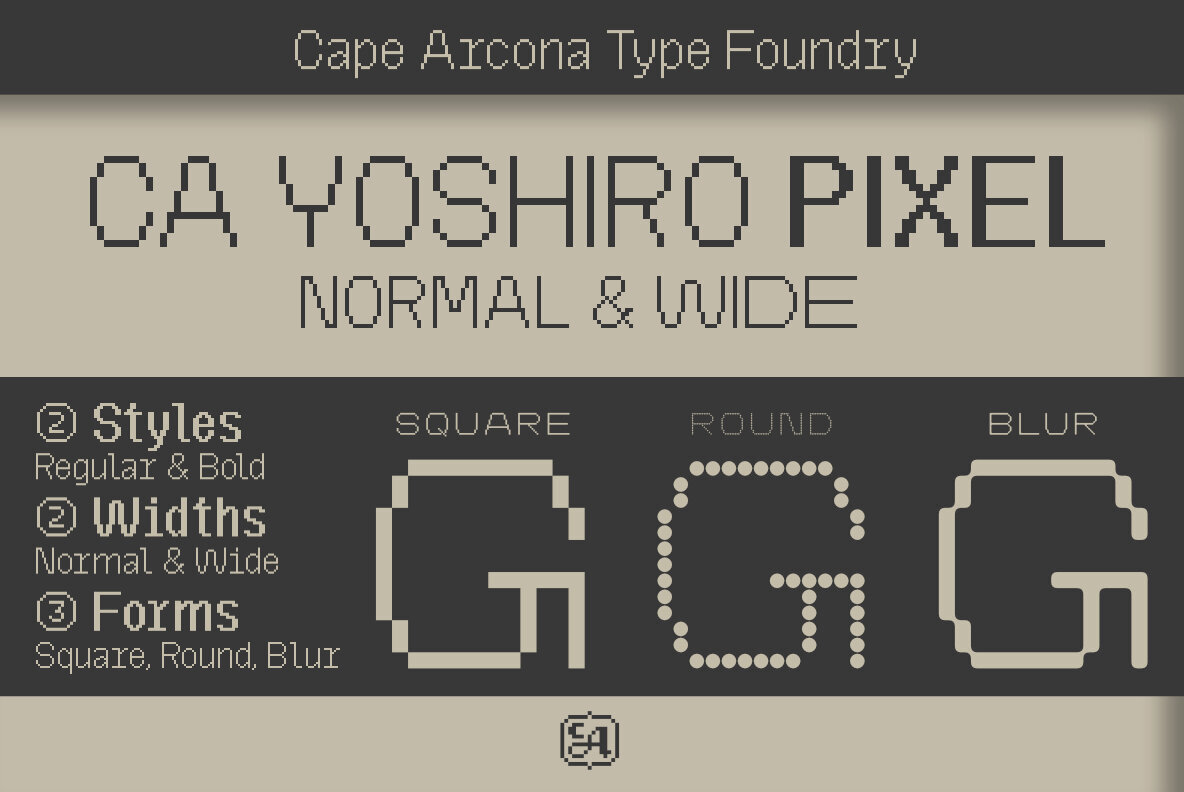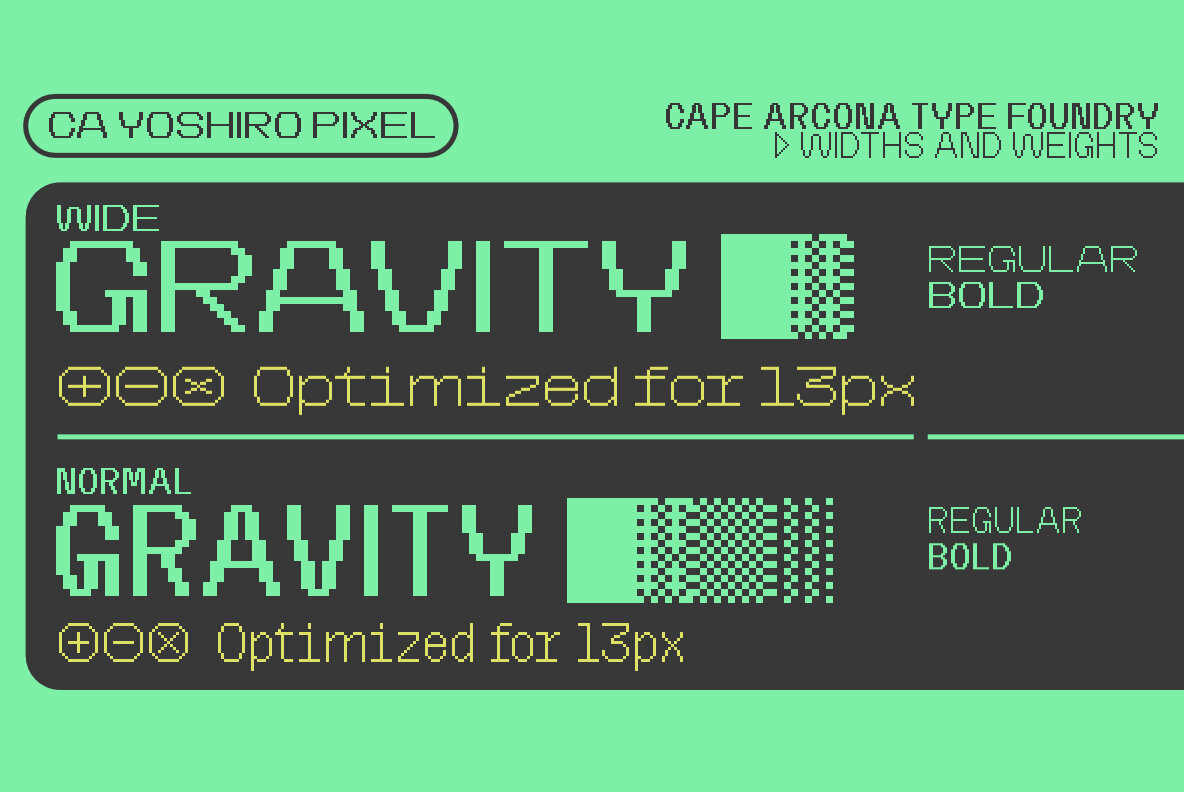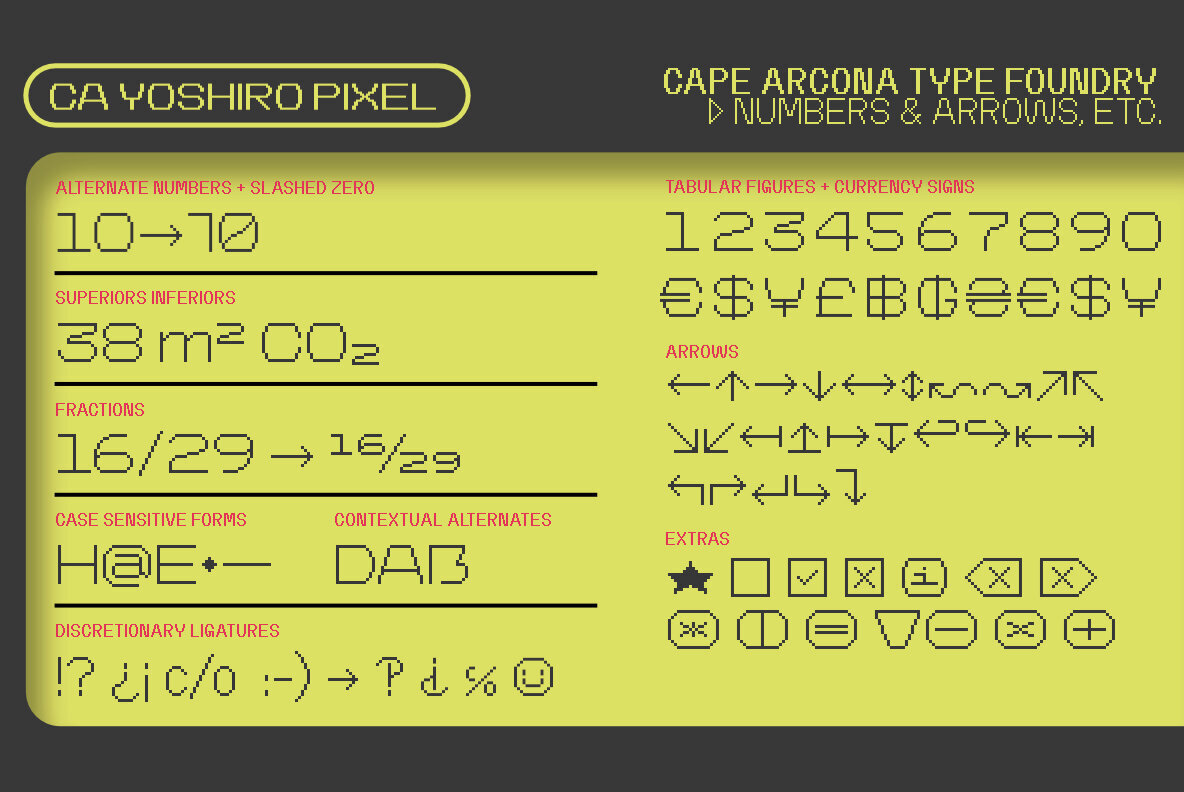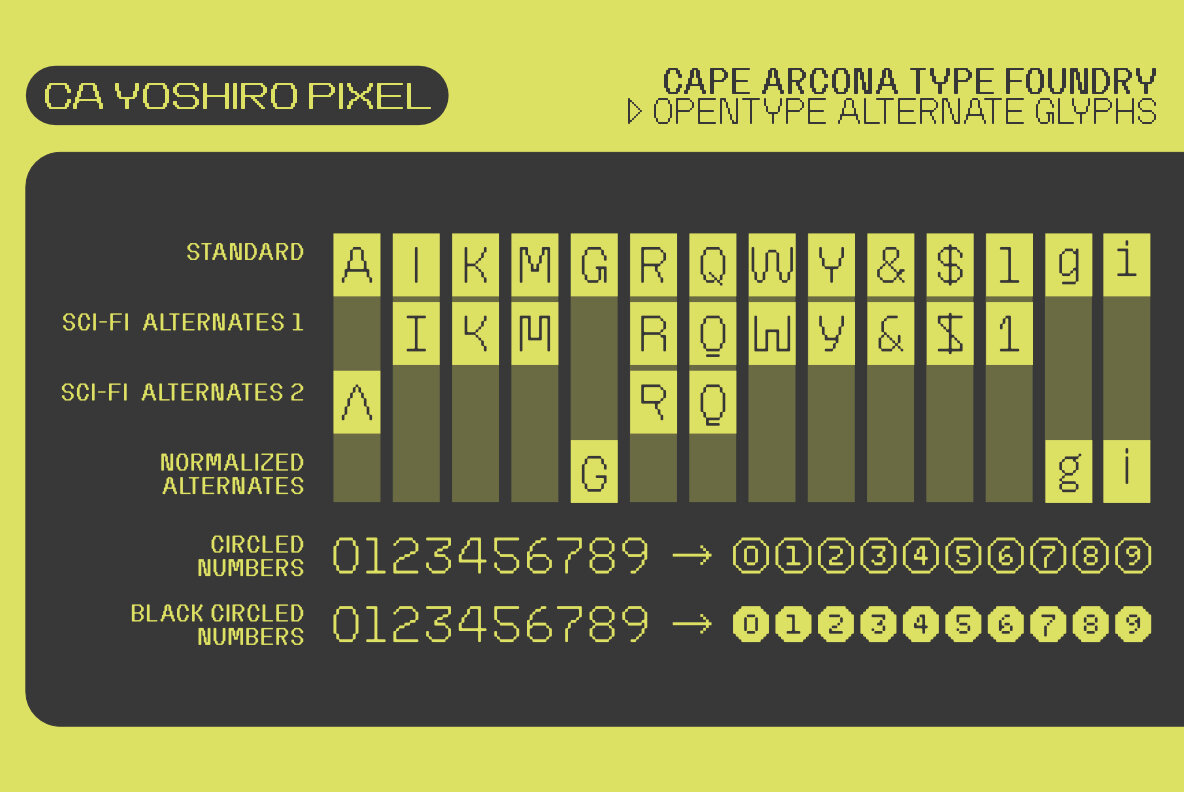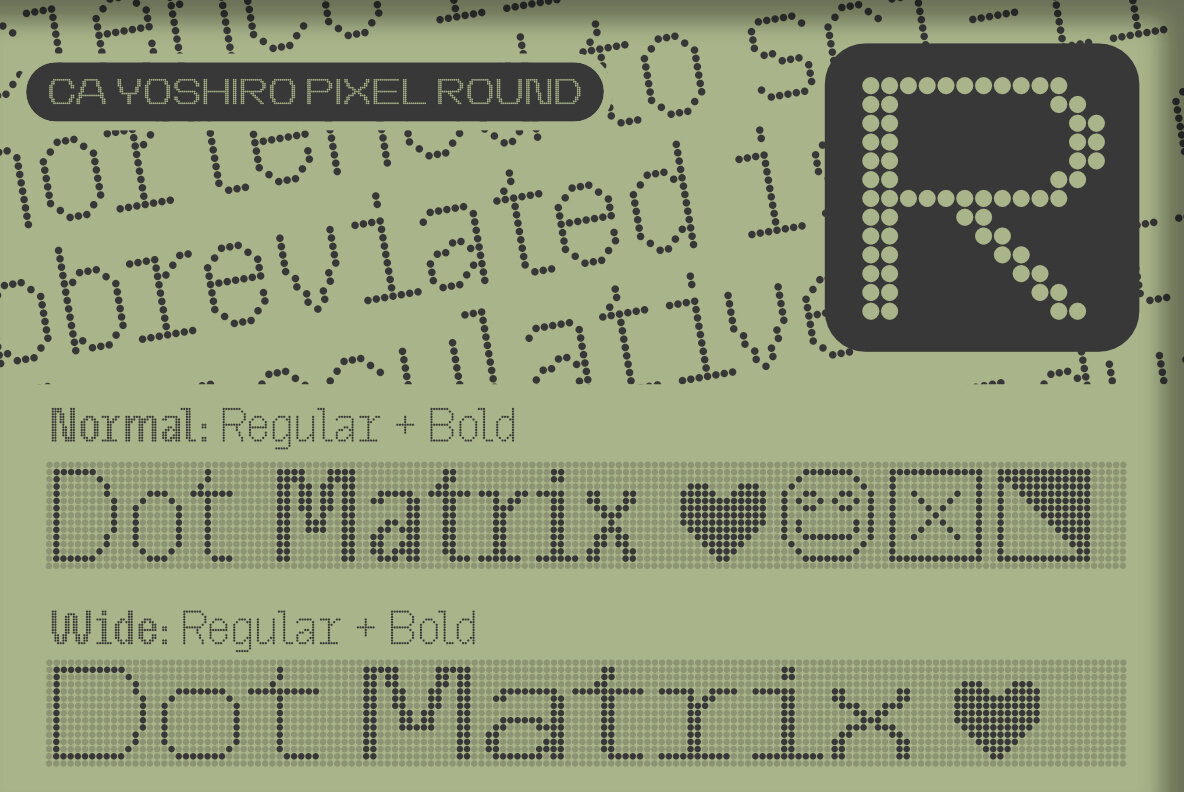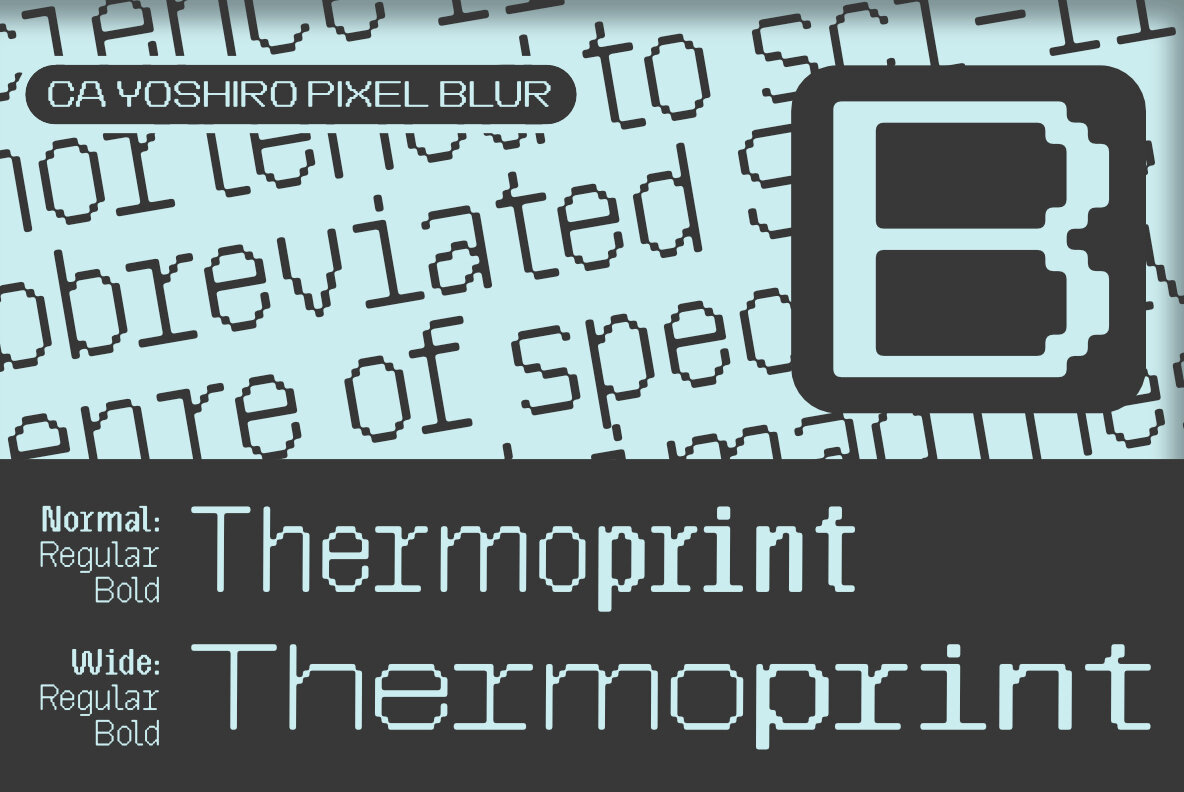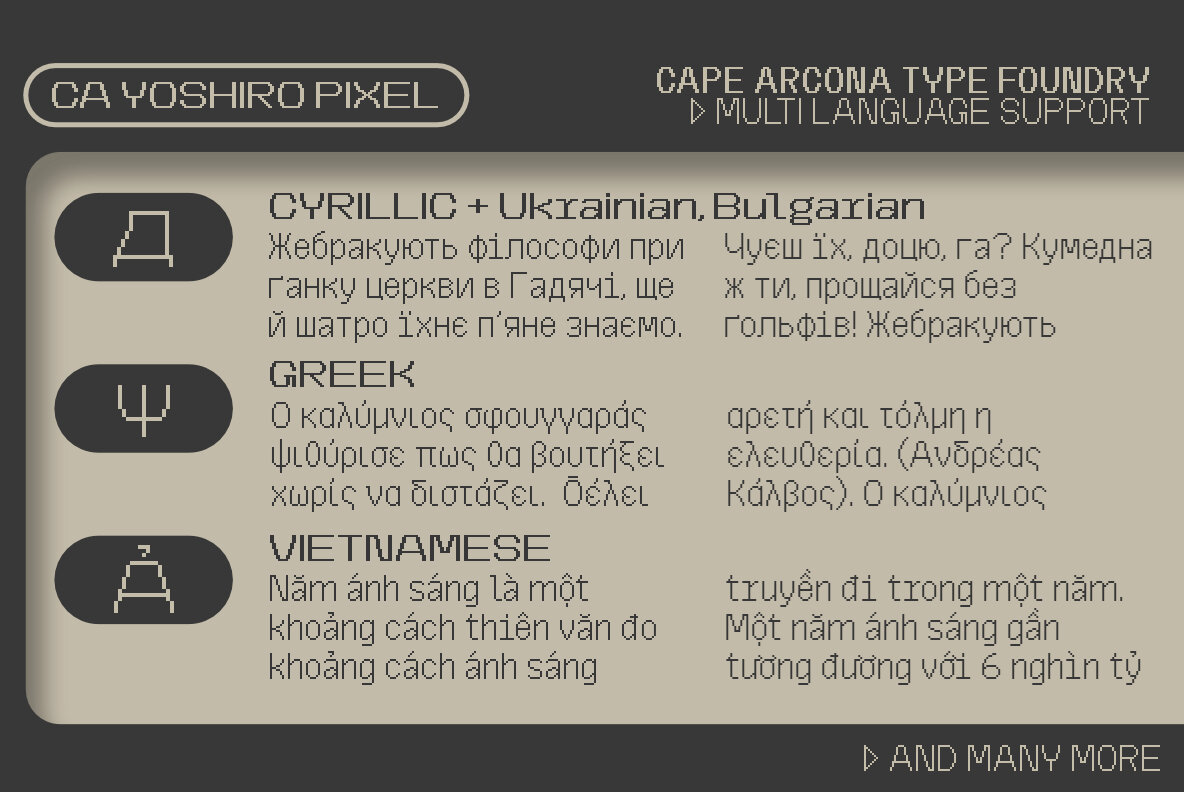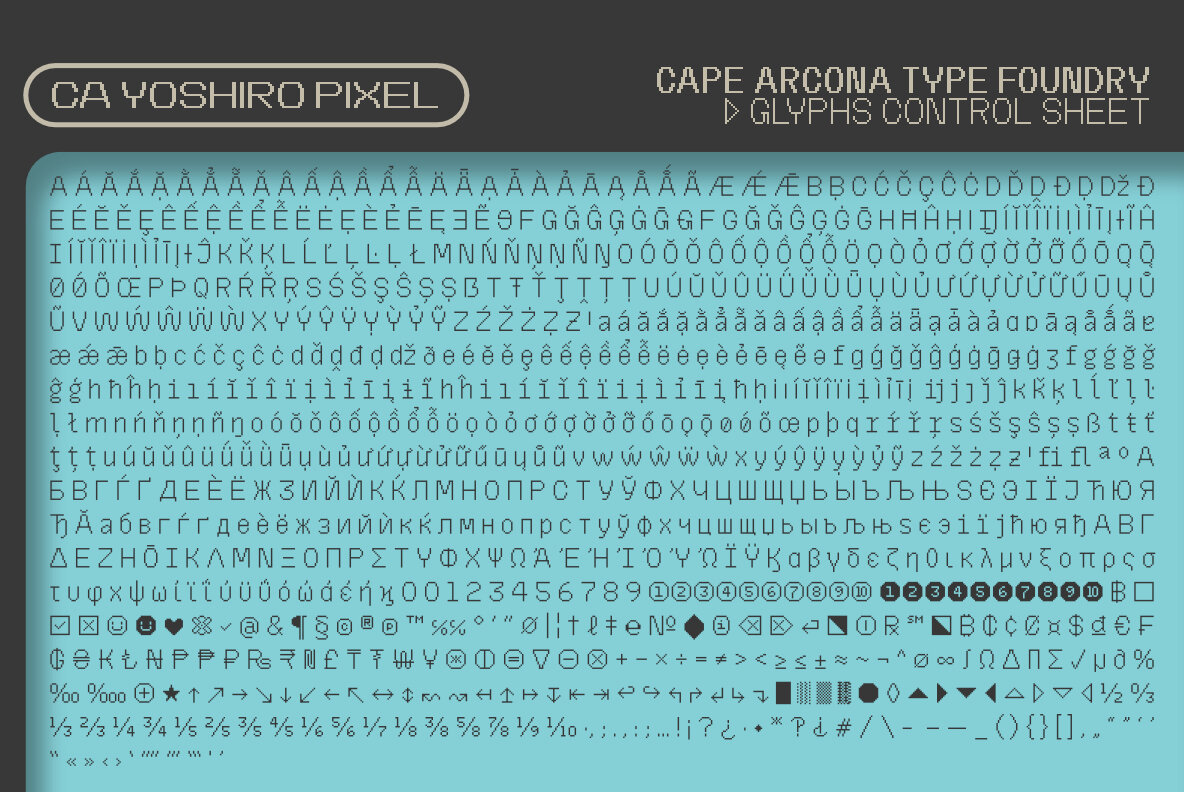
CA Yoshiro Pixel Font
Rooted in the clean geometry of the original CA Yoshiro, the CA Yoshiro Pixel transforms a classic aesthetic into a grid-based system, fusing digital nostalgia with refined sci-fi elegance. The family is available in two widths (Normal and Wide) and two weights (Regular and Bold), offering a versatile typographic array. With over 1000 characters, stylistic alternates, and extensive language support, including Cyrillic, Greek, and Vietnamese, CA Yoshiro Pixel is engineered for creative flexibility in futuristic interfaces, minimalist posters, and digital art.CA Yoshiro Pixel: Melding Retro and Futurism
Stylistic Subfamilies